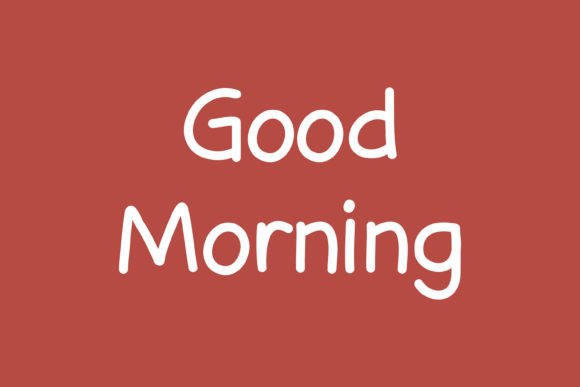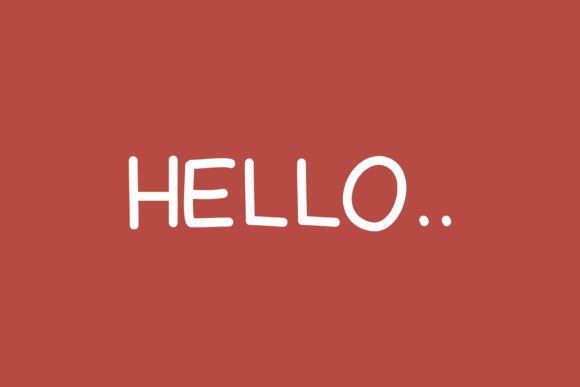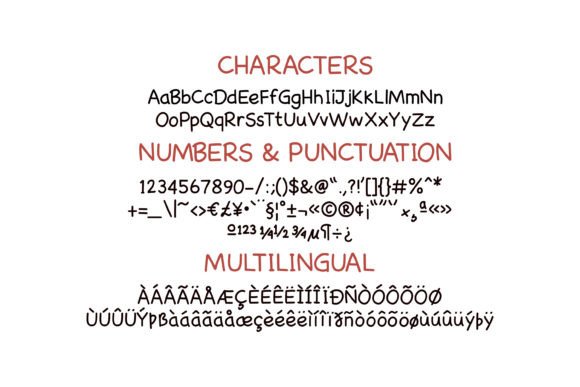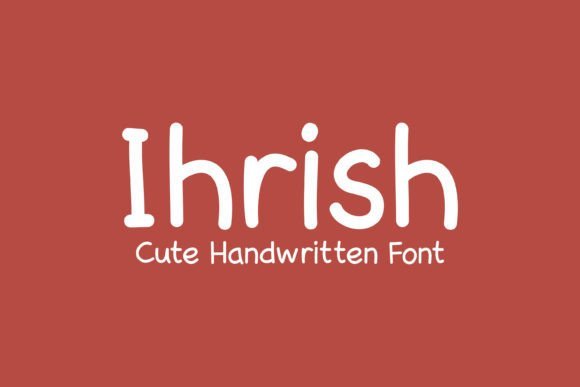
Introduction to Ihrish Font
Ihrish is a sweet and casual handwritten font that is a great for posters, logos, business cards, mugs, apparel, decorations and more.
It can also be used to make your social media posts more interesting Beautify your designs with striking font.
Key Features of Ihrish Font